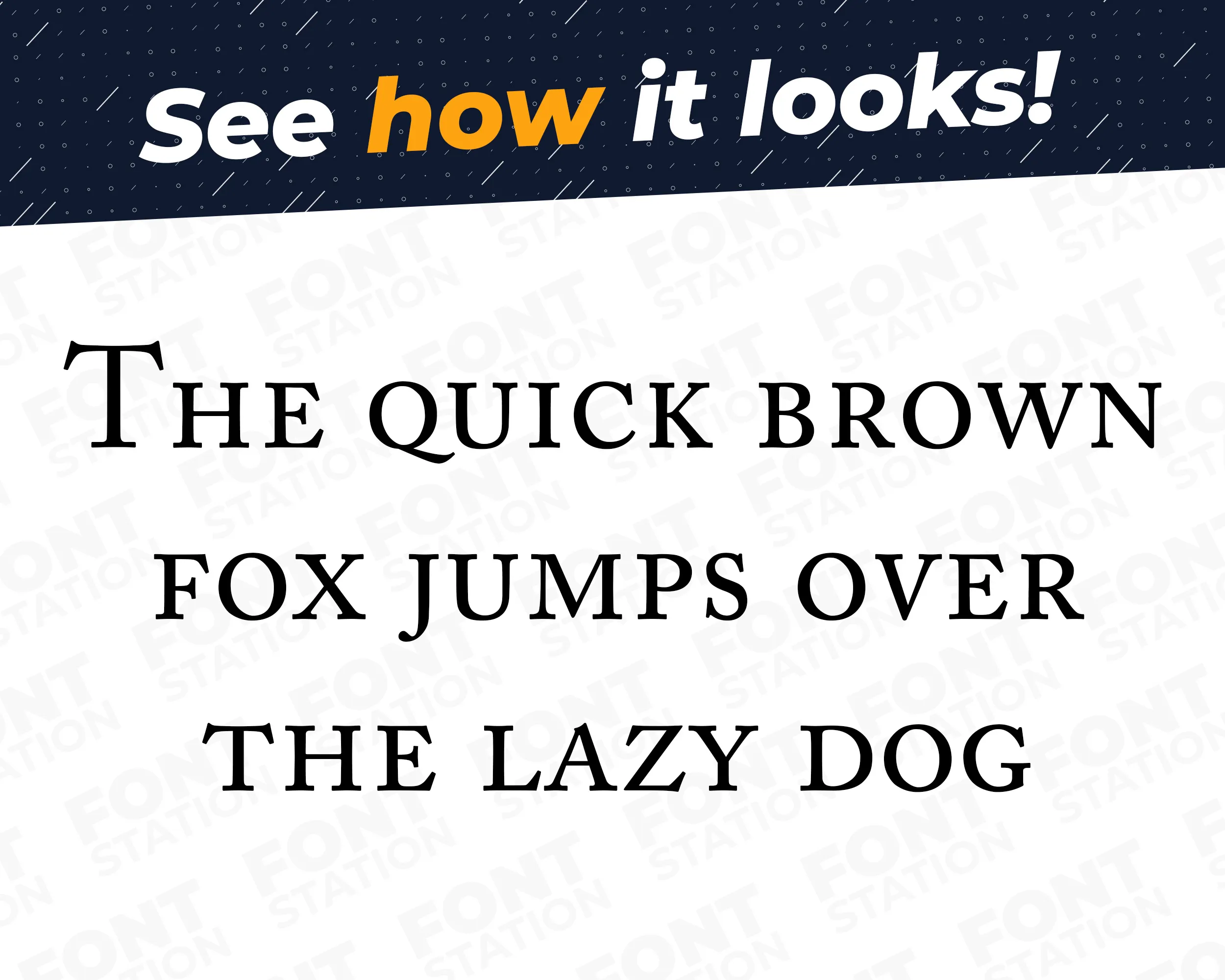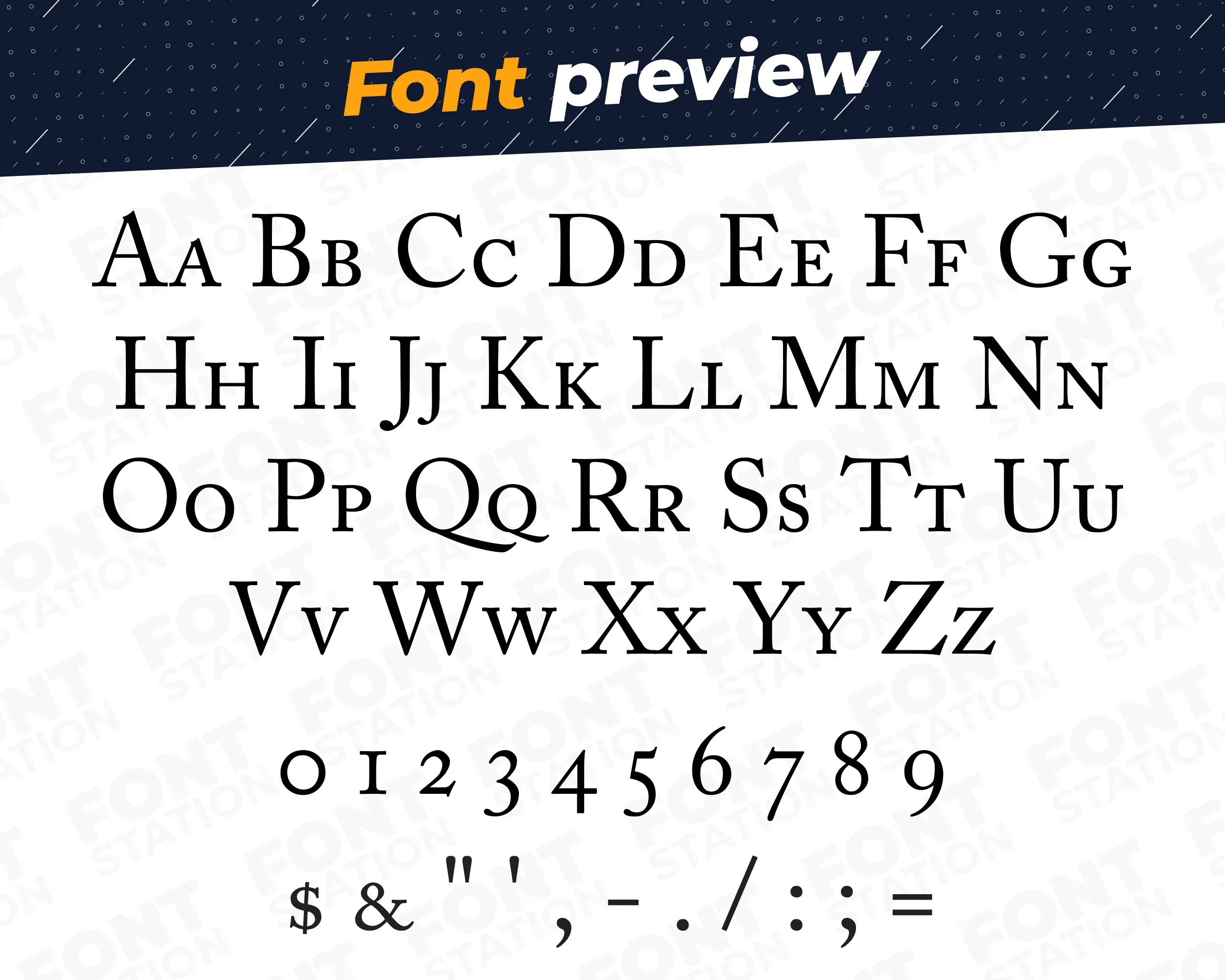
Our Abbey typeface, inspired from Downton Abbey font
Grab your computer, tablet or other device and start creating right now with our Downton Abbey font letters! Our Abbey typography is inspired from Downton Abbey series font, making it ideal for various digital creations (logo, word…), sublimation, cake toppers, stickers, event decorations, and more.
Image showing all characters available in the Downton Abbey British Vintage Royal Series font created by FontMaze.
Downton Abbey Font